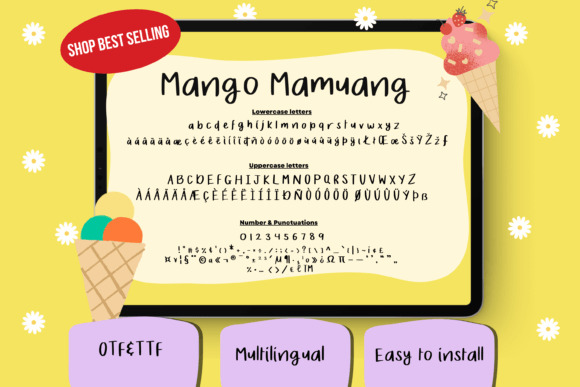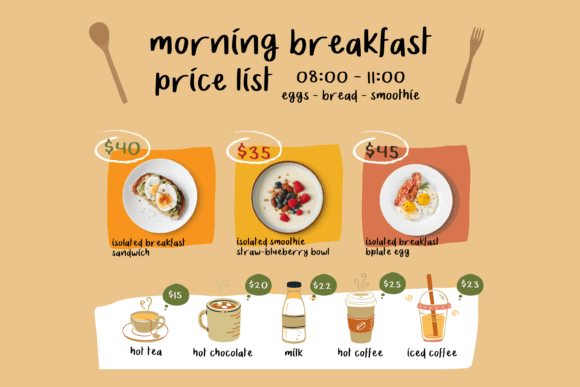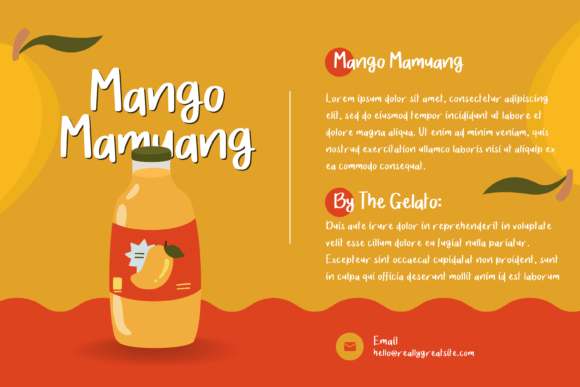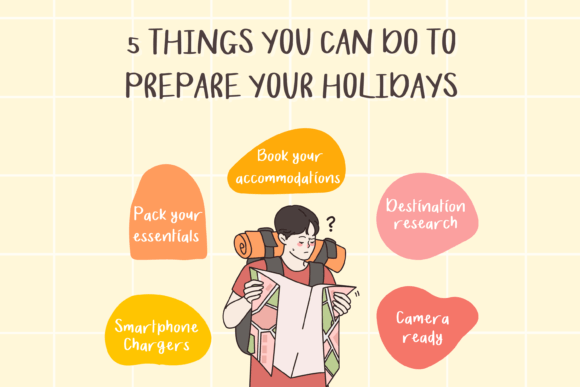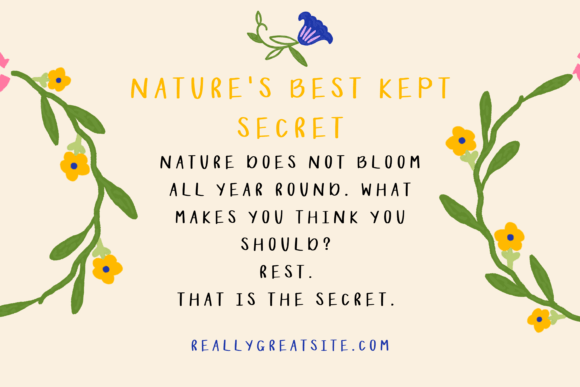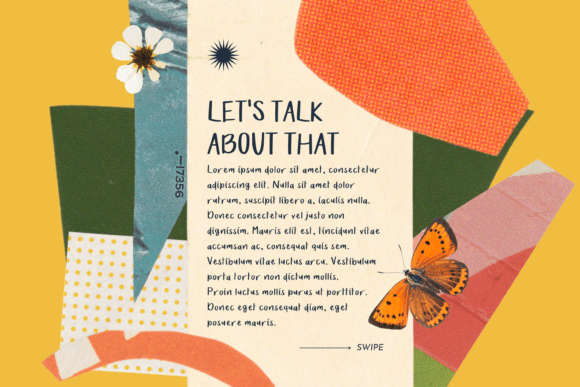
Mango Mamuang is a charming handwritten font that delivers the authentic feel of writing with a roller pen. It’s designed to look both tidy and realistic, combining neat lines with a human touch. This font is perfect for users who love the balance between clarity and personality in their writing.
Whether you’re creating digital planners, designing personalized stationery, or enhancing your social media graphics, the Mango Mamuang font download offers a natural flow that adds life and warmth to your designs. Its clean yet hand-drawn style makes it an ideal companion for both printed and digital applications.
• Quotations & Headers – Add a personal tone while keeping it clean
• Logos & Branding – Give your visual identity a relaxed and human vibe
• Product Packaging – Ideal for handmade goods, skincare, stationery, and food labels
• iPad & Digital Planners – Works great in GoodNotes, Notability, and other apps
• Digital Journals & Templates – A must-have for aesthetic daily planning
• Banners, Posters & Menus – Tidy and professional without looking robotic
• Social Media Graphics – Engaging for lifestyle and educational content
• Handwritten Roller Pen Look – Mimics real ink strokes for authenticity
• Clean, Neat Appearance – Perfect balance of order and personality
• Ideal for Digital Note-Taking – Especially for iPad users and planners
• Multi-Language Support – Includes characters for various languages
The Mango Mamuang font download brings together the elegance of neat handwriting with the charm of an everyday pen. It’s perfect for users who need a handwritten look that still maintains legibility and professionalism. Whether you’re designing for clients or crafting personal projects, this font is sure to become your daily go-to.